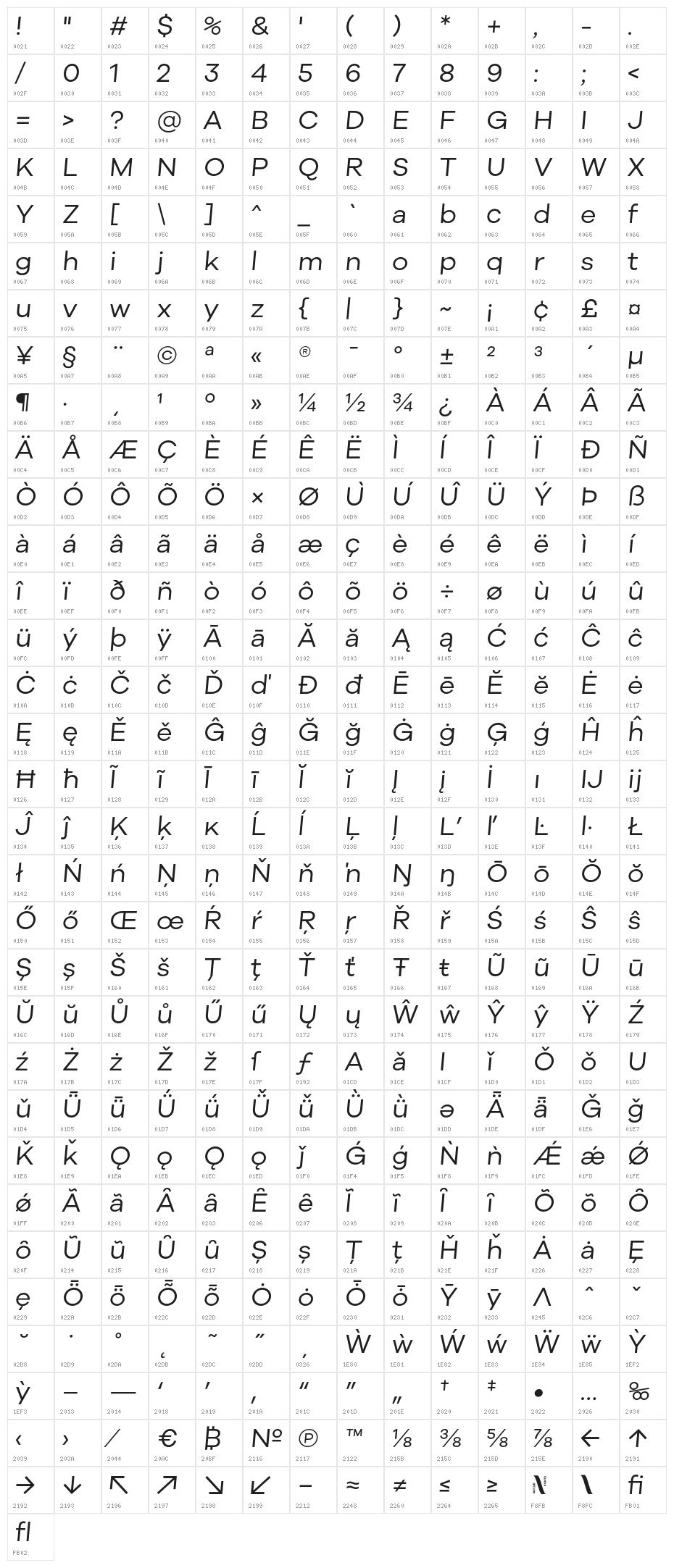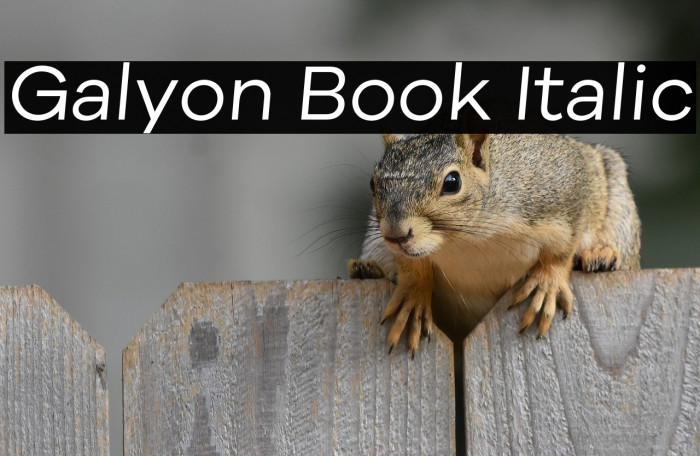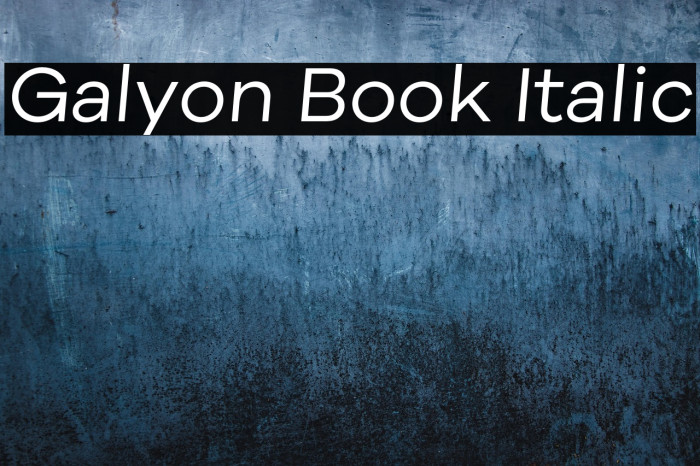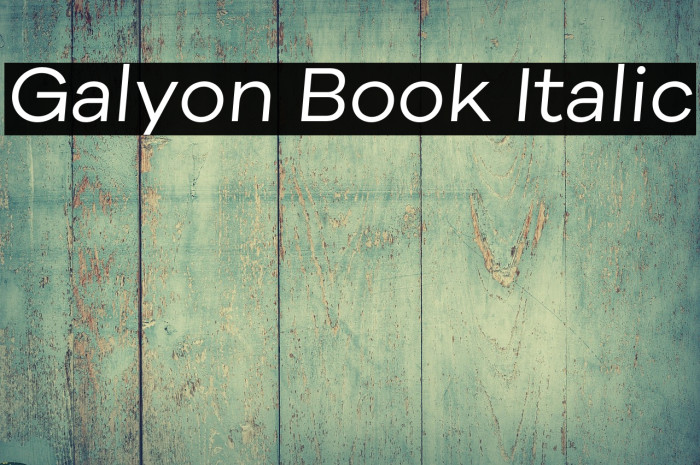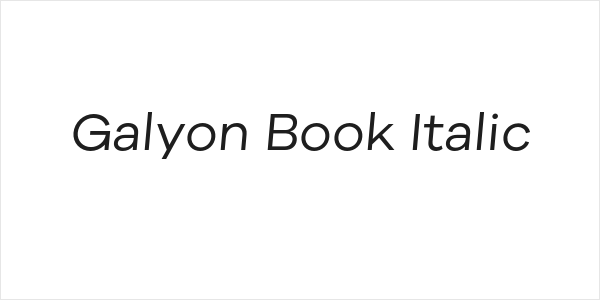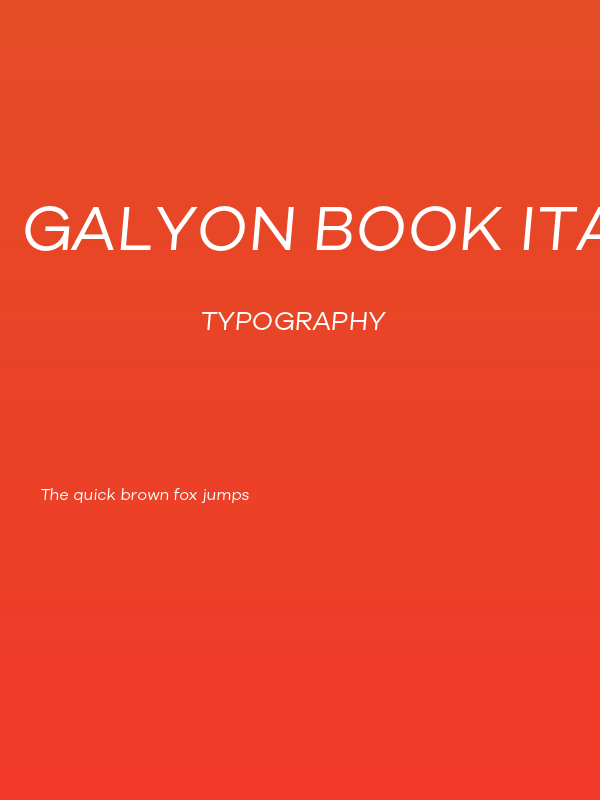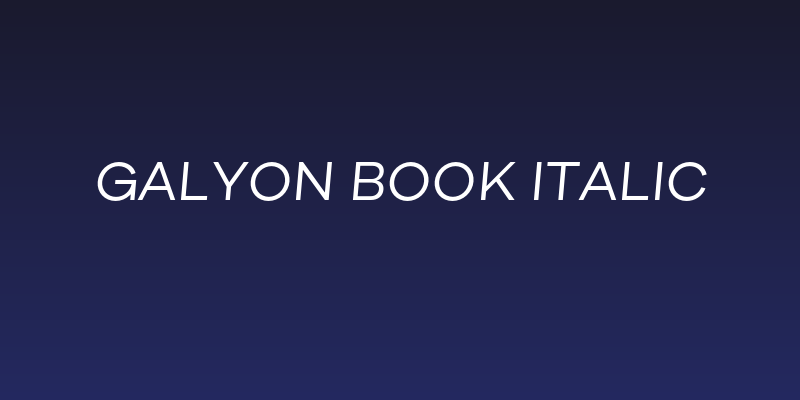
Galyon Book Italic Font
Galyon Book Italic Description
This font features a sleek and modern design with a subtle italic slant, giving it a dynamic and elegant appearance. The characters are well-proportioned with a consistent stroke width, contributing to a clean and professional look. The uppercase letters are slightly taller than the lowercase, providing a balanced contrast. The numerals are clear and easy to read, making them suitable for various applications. Special characters are distinct and well-integrated into the overall design. The font's smooth curves and minimalistic style make it versatile for both digital and print media.